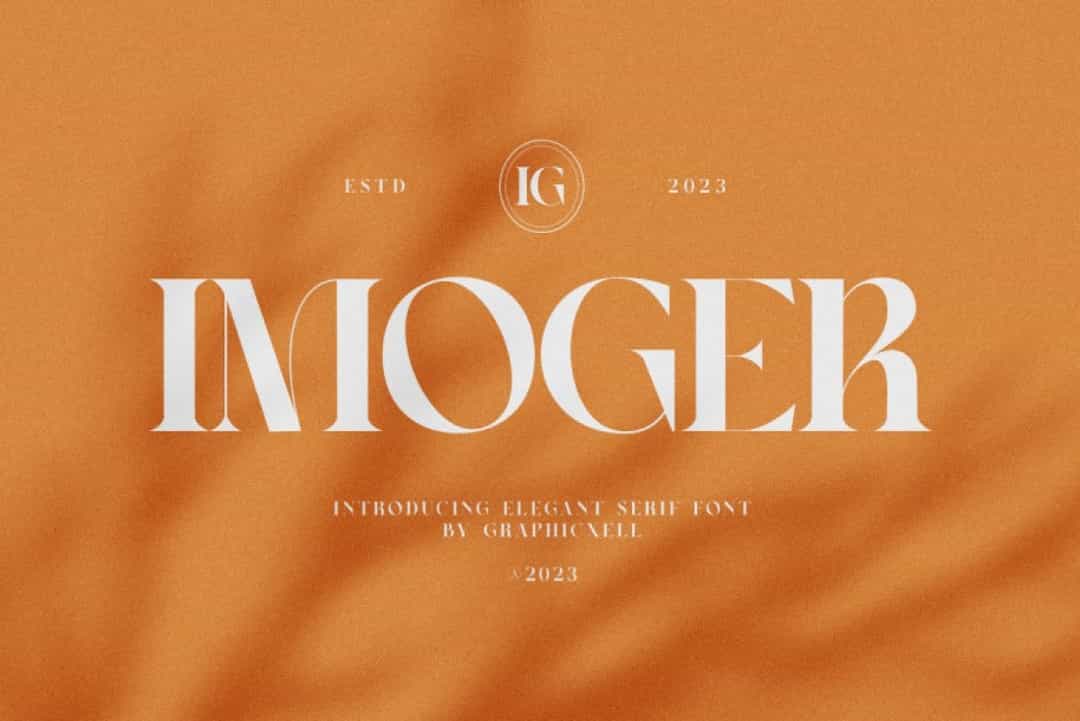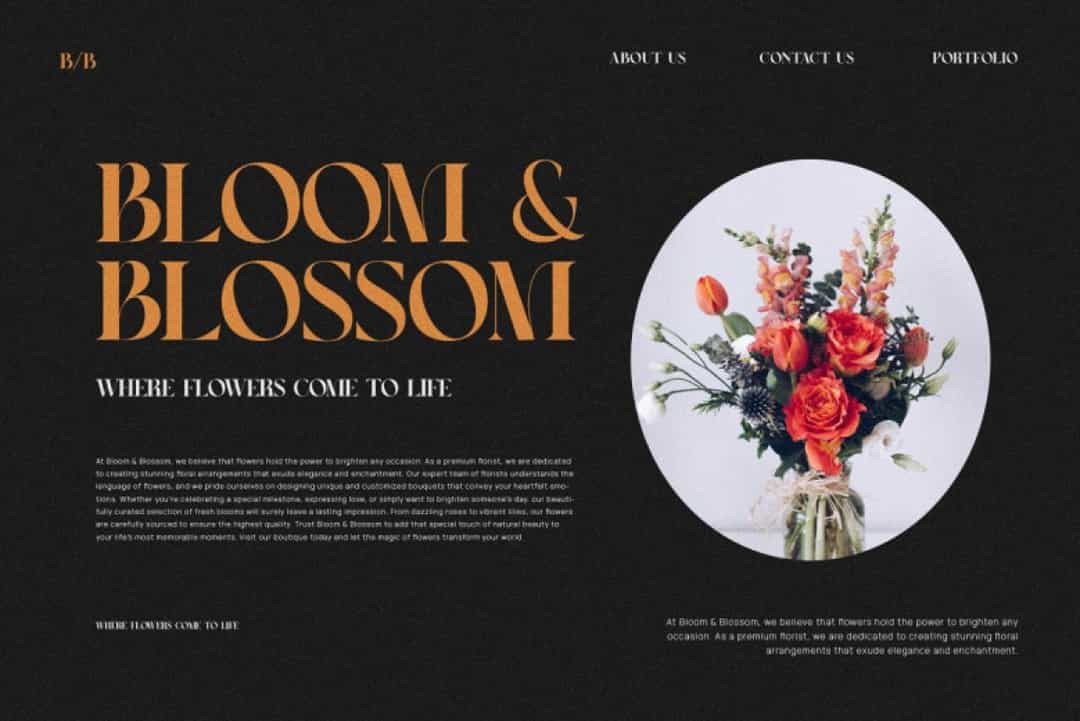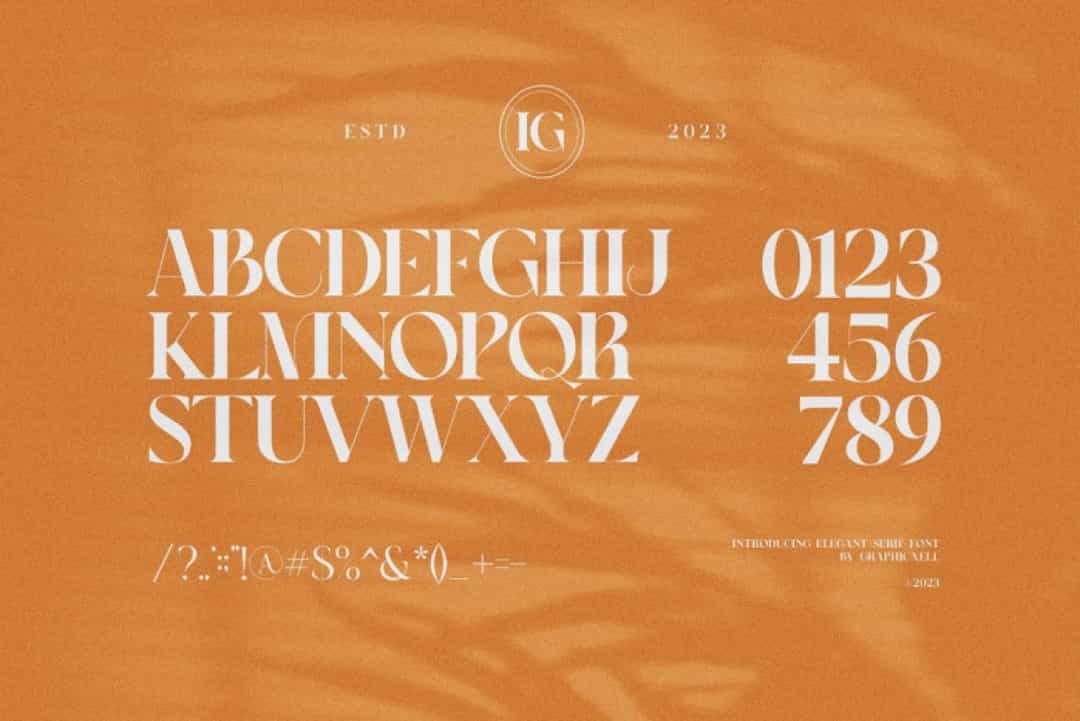
Imoger is an original and stylish serif typeface ideal for logo and branding designs. Boasting a sophisticated and contemporary appearance, Imoger makes an impressionful first impression when used for logo or branding designs, wedding invitation designs or social media posts – not forgetting watermark invitations designed with extreme comprehension! Purchase this font without hesitation to ensure success! You won’t be disappointed when purchasing it!